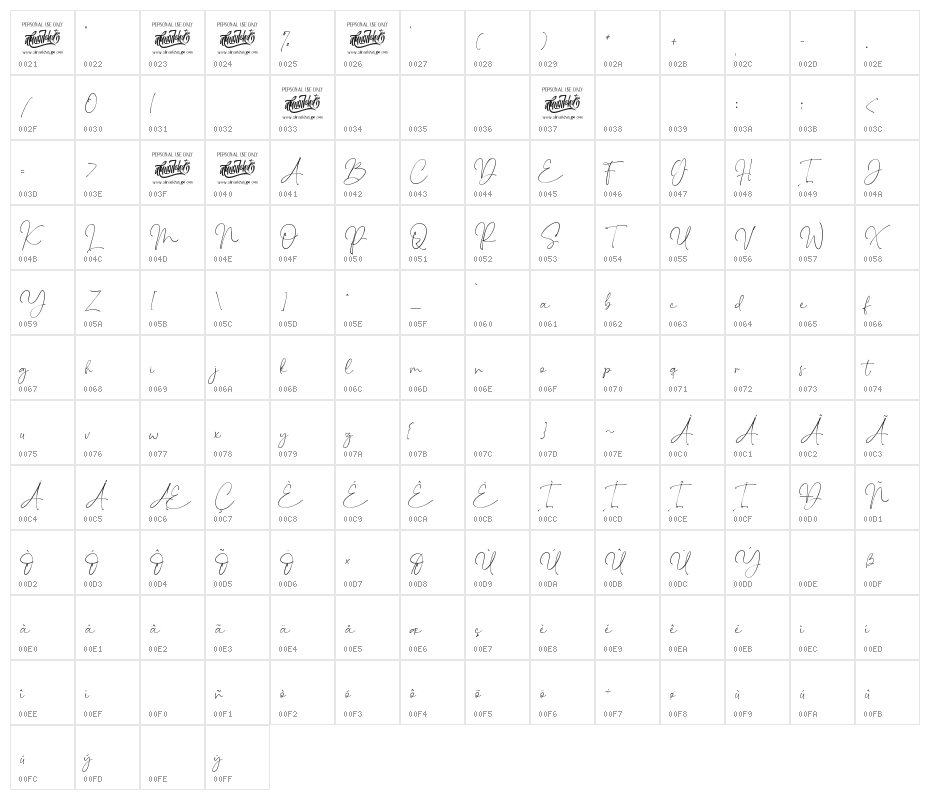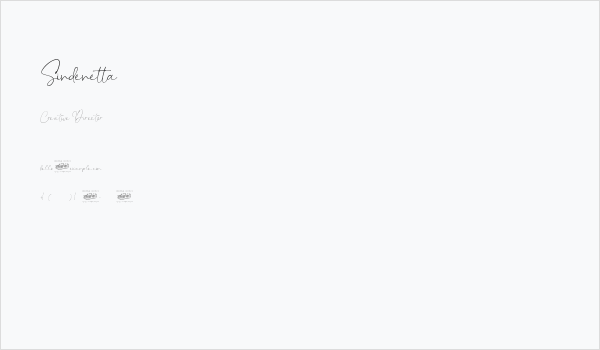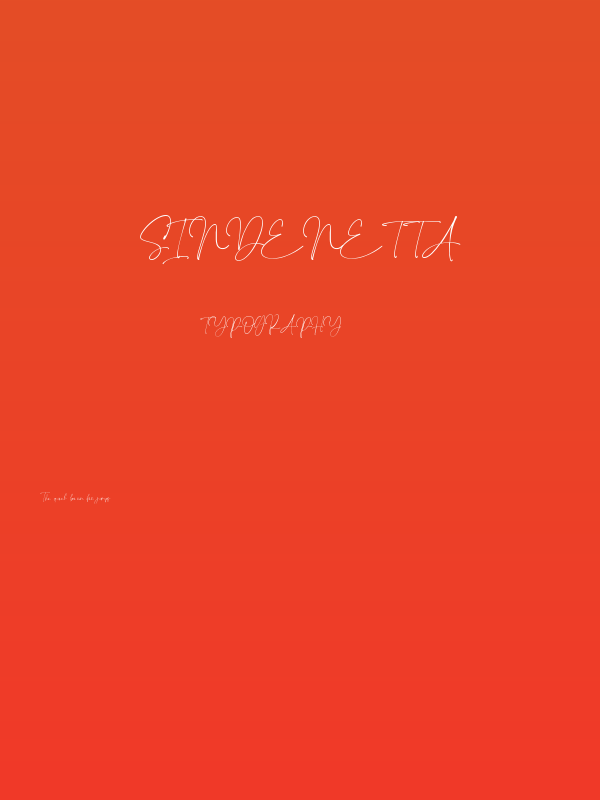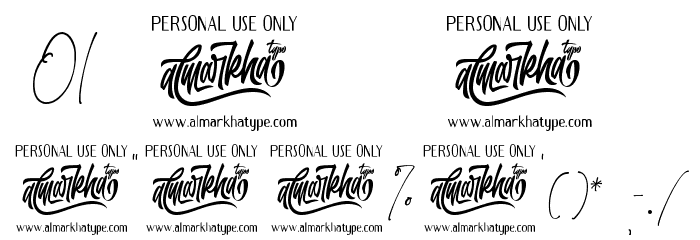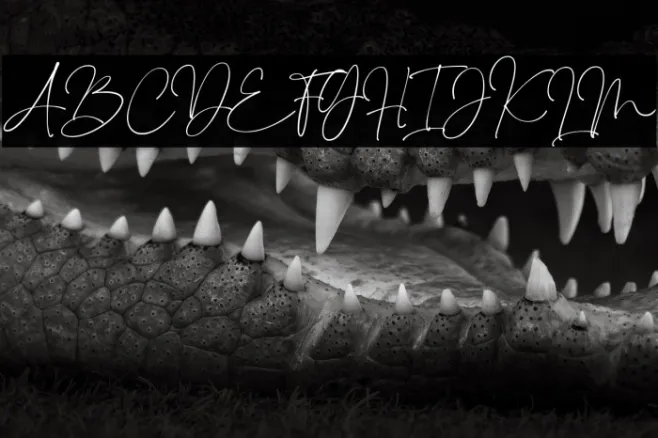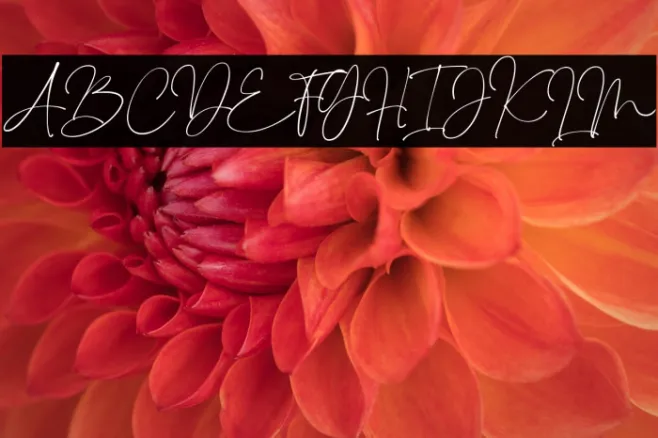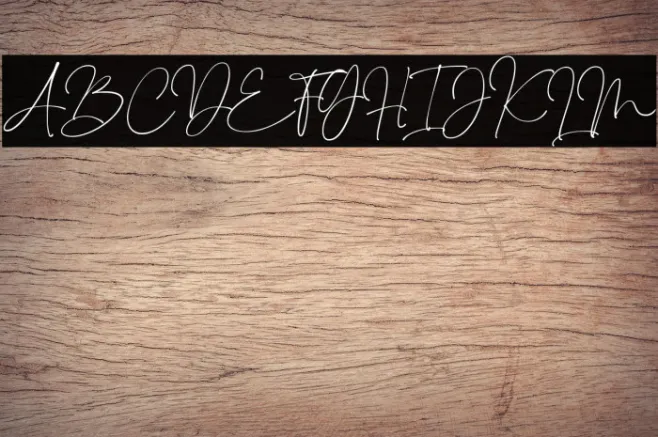
Sindenetta Font
Sindenetta Description
This font features an elegant, flowing script style that mimics natural handwriting. The characters are connected with smooth, continuous strokes, giving it a fluid and graceful appearance. The uppercase letters are slightly more ornate, with loops and curves that add a touch of sophistication. The lowercase letters maintain a consistent style, with a delicate balance between thin and slightly thicker lines, creating a harmonious look. The numbers and special characters follow the same aesthetic, ensuring uniformity across all elements. This font is ideal for projects that require a personal, artistic touch.
| Overall Style | Elegant, Artistic |
| Proposed Projects | Ideal for wedding invitations, greeting cards, personal branding, and artistic projects. |